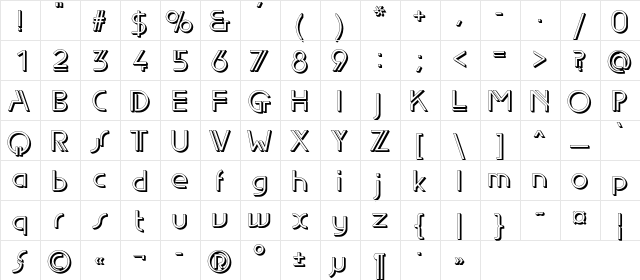
EdgeLineShadow Regular
Design Context for EdgeLineShadow Typeface
EdgeLineShadow brings ornamental detail and strong personality to headlines and identities, where visual impact matters more than quiet functionality.
Font Pairing: Pair with a clean neutral sans-serif for body copy to let EdgeLineShadow's character lead without overwhelming the composition.
Pro Tip: Treat EdgeLineShadow as the centrepiece of your typographic hierarchy. One strong heading set in a decorative face can carry an entire layout.